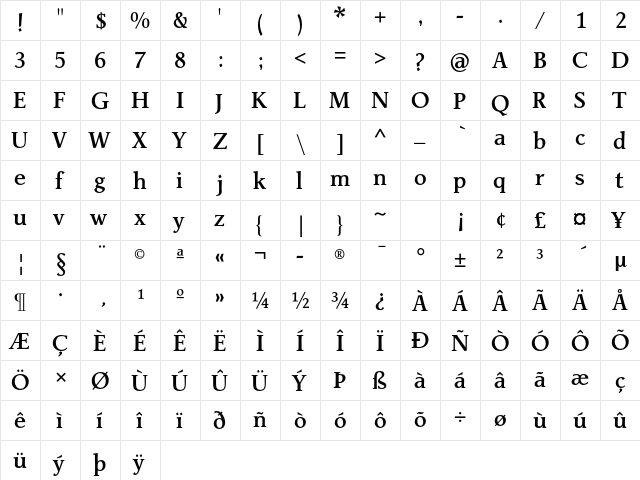
Jante Antiqua Std Demi
| Designer | Poul Sn |
Design Context for Jante Antiqua Std Typeface
Jante Antiqua Std offers clean, dependable letterforms without strong stylistic allegiance, making it a practical choice for designers who need flexibility.